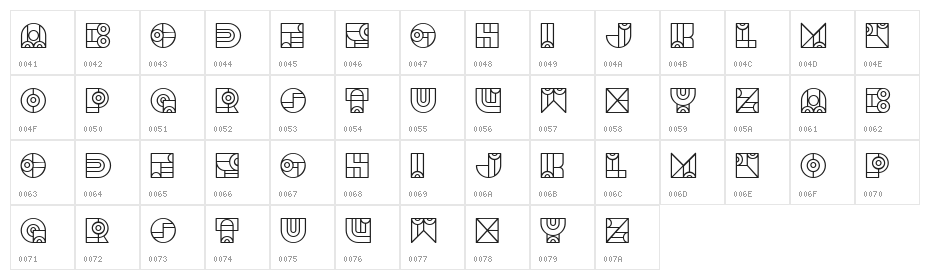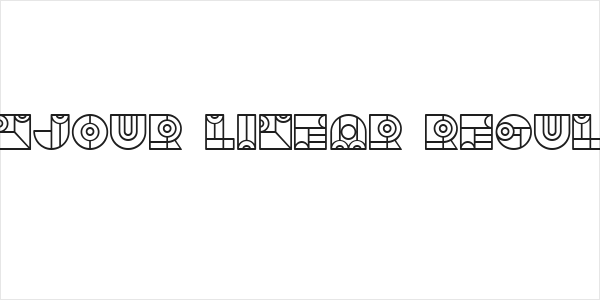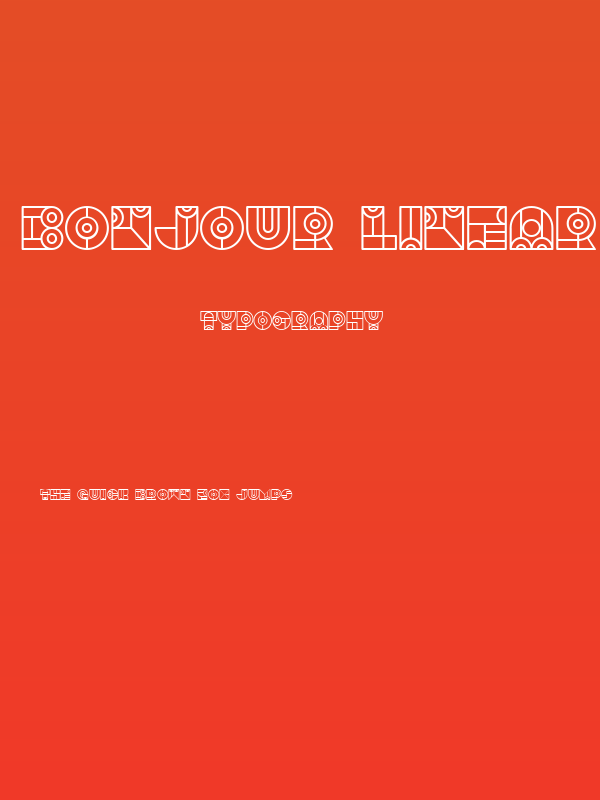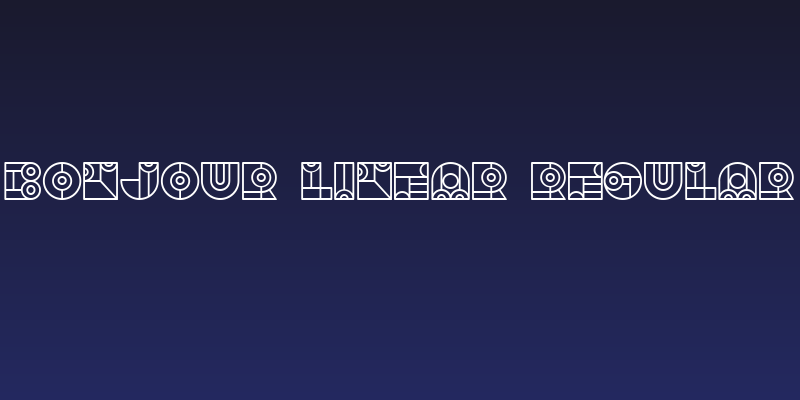
Bonjour Linear Regular Font
Bonjour Linear Regular Description
This font features a unique geometric design with a linear, outlined style. Each character is constructed using a combination of circles, lines, and arcs, creating a visually striking and modern appearance. The uppercase letters are bold and structured, with intricate patterns that give a sense of movement and rhythm. The font's design is consistent across all characters, maintaining a cohesive look that is both artistic and functional. Its decorative nature makes it ideal for projects that require a standout typeface with a contemporary edge.
| Proposed Projects | Ideal for branding, posters, album covers, and modern art projects. |